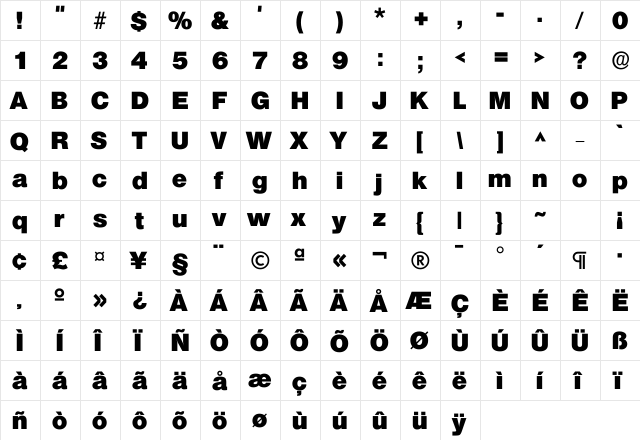
MVSans Bold
| Foundry | MicroVision Development |
| Designer | MicroVision Development |
Design Context for MVSans Typeface
MVSans takes a measured approach to typography — its balanced proportions and neutral character make it a reliable workhorse for both digital and print work. The heavy weight commands attention and anchors typographic hierarchies.